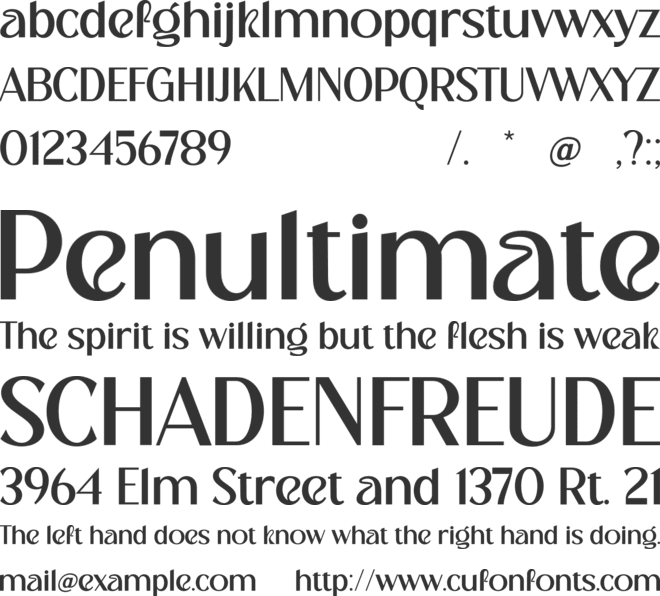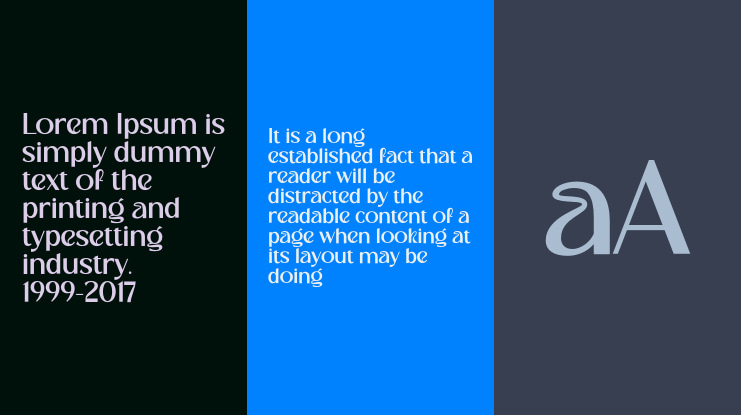
Afkari Studio
Cranio - Modern Sans Serif Display Font
Cranio is a modern sans serif display font designed to deliver clean impact, bold clarity, and contemporary style. Built with balanced proportions and strong geometric structure, Cranio offers a sleek and professional look that fits perfectly into today’s branding and digital design trends. Its sharp edges and confident letterforms make it an ideal choice for high-visibility typography.